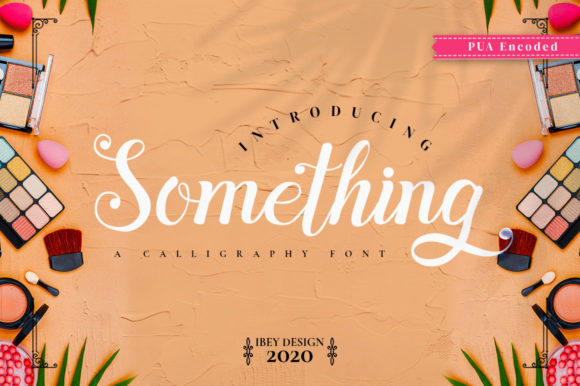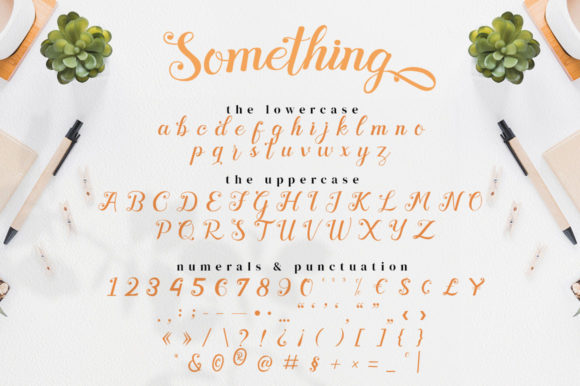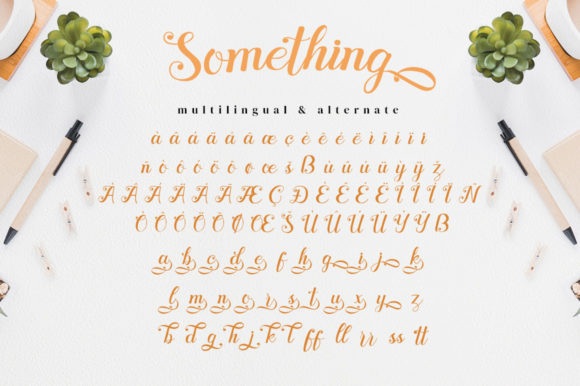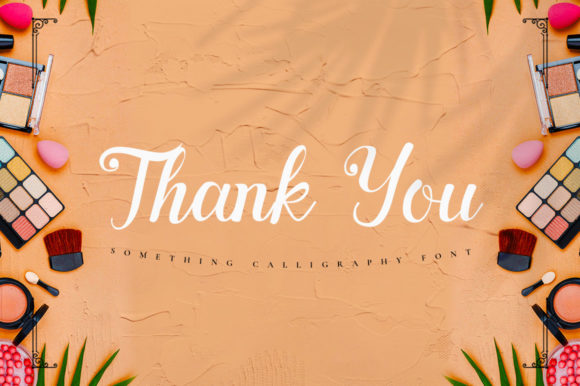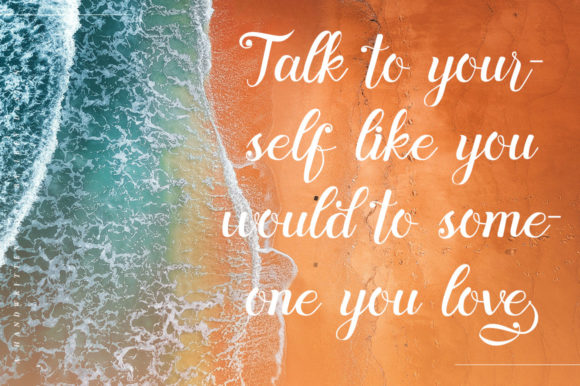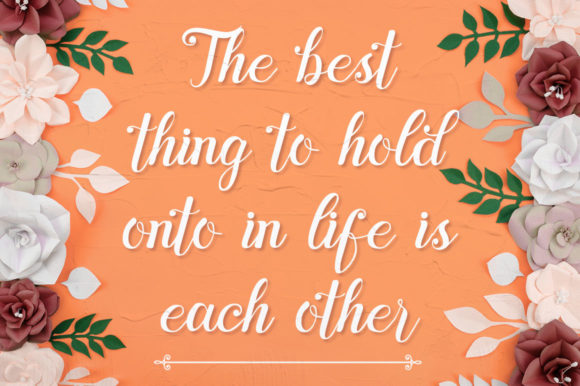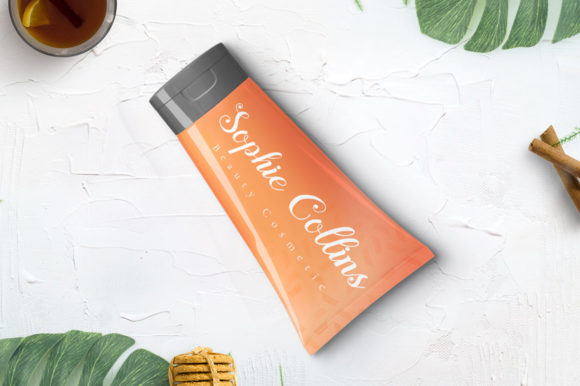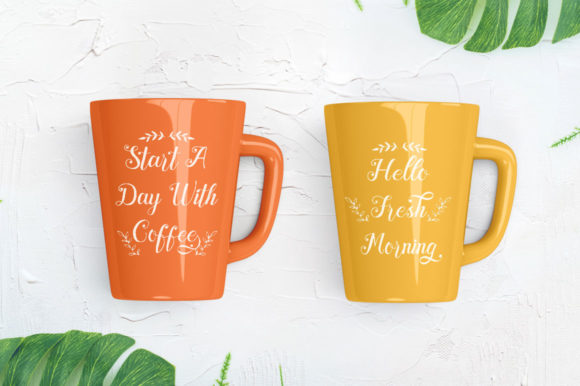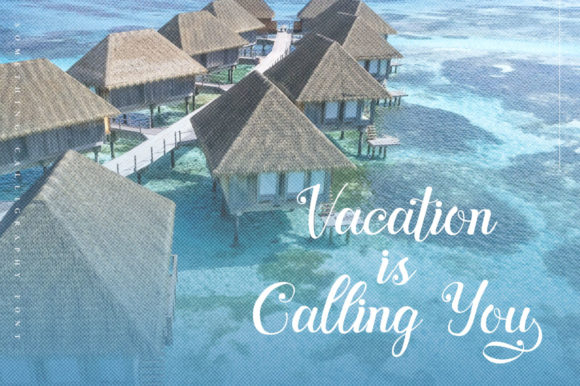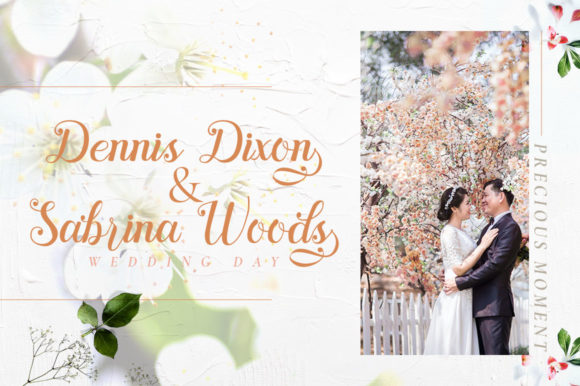
Something Font
About Something Font
“Something” is a captivating and elegant handwritten font that exudes a sense of timelessness and grace. Its unique and delicate style makes it a versatile choice for various design projects, adding a touch of sophistication and charm to any creative endeavor. Here are some specific ways to leverage the beauty of the “Something” font:
1. Wedding Invitations: Design enchanting and romantic wedding invitations with the “Something” font, setting the tone for a memorable celebration of love and union.
2. Thank You Cards: Create heartfelt and elegant thank you cards, expressing gratitude with a touch of refinement and artistry.
3. Quotes and Typography Art: Craft exquisite typography art and quote posters using the “Something” font, enhancing meaningful messages with its captivating appearance.
4. Greeting Cards: Design chic and sophisticated greeting cards for all occasions, making a lasting impression on recipients with the elegance of “Something.”
5. Logos and Branding: Utilize the “Something” font for logos and branding materials, infusing your brand identity with a sense of timeless beauty.
6. Business Cards: Create distinctive and memorable business cards with the “Something” font, leaving a lasting impact on potential clients and partners.
7. Personal Stationery: Use the “Something” font for personal stationery, including letterheads and notecards, reflecting your refined and artistic style.
8. Book Covers: Apply the “Something” font to book covers, adding an artistic touch of elegance and charm to your literary works.
9. Social Media Graphics: Design captivating and stylish social media posts with the “Something” font, drawing attention to your content with its allure.
10. Art Prints: Create refined and artistic art prints using the “Something” font, offering collectors and enthusiasts unique and stunning pieces.
11. Packaging and Labels: Utilize the “Something” font for packaging and label designs, giving your products an exquisite and sophisticated appearance.
12. Event Invitations: Design exclusive and artistic invitations for special events and celebrations, showcasing the allure of the “Something” font.
13. Signage and Displays: Apply the “Something” font to signage and displays, making an elegant and lasting statement in various settings.
14. Magazine Headlines: Use the “Something” font for magazine headlines, adding a touch of sophistication and beauty to editorial layouts.
15. Website and Blog Headers: Implement the “Something” font in website banners and blog headers, elevating the visual appeal of your online platform.
The “Something” font’s distinct, delicate, and timeless qualities make it an ideal choice for a wide range of design projects. Its handwritten touch brings a sense of authenticity and beauty to any design, making it a cherished asset in creating breathtaking and memorable pieces. Whether used for personal or professional projects, the “Something” font’s elegance and charm will captivate audiences and leave a lasting impression.